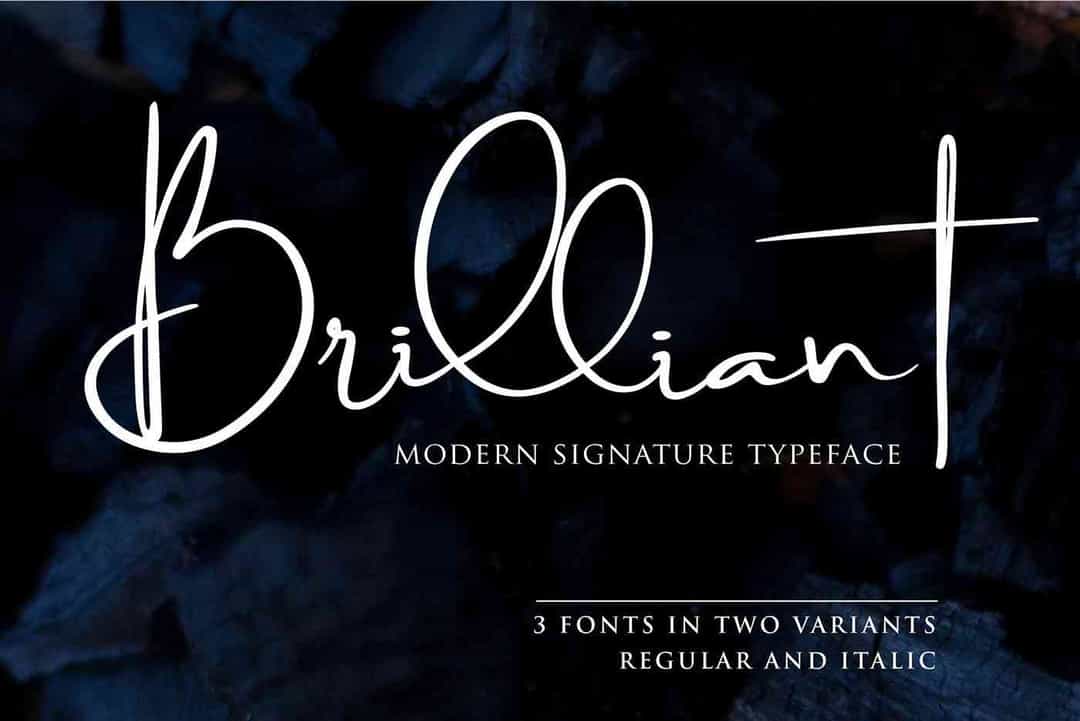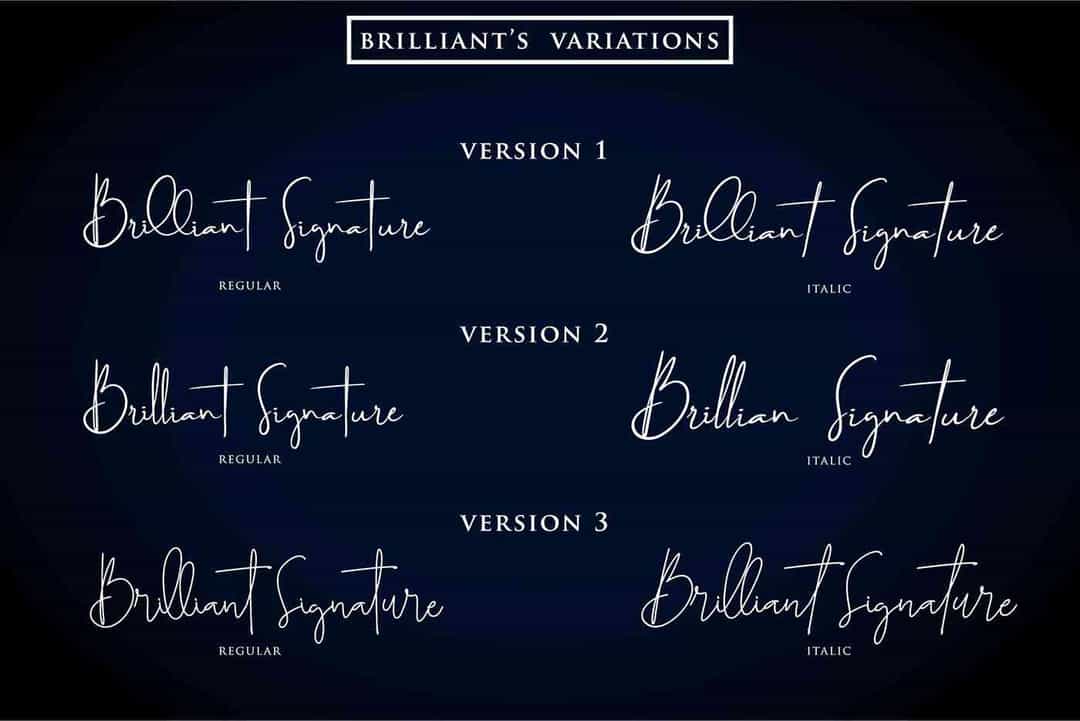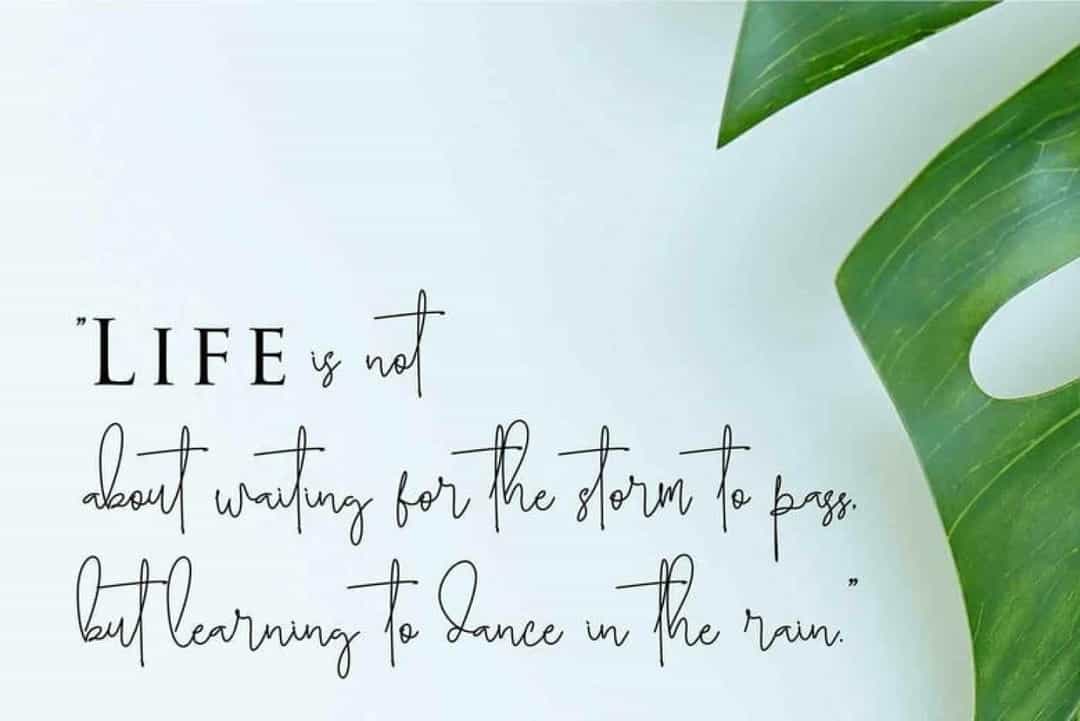
Introducing: Brilliant Font. Another product from Letter Fia on DMletter studio! Brilliant is a modern font in signature style, very suitable for the purposes of creating impressive product packs, brand names identity, and much more. This Collection also offers some types that you can use to mix and match in order to beautify your design The font is characterized by elegant style, but at the same time it is informal enough that large projects will open.